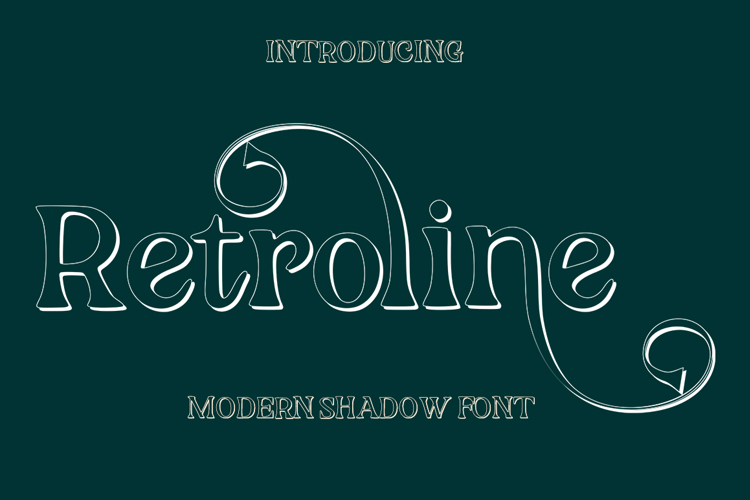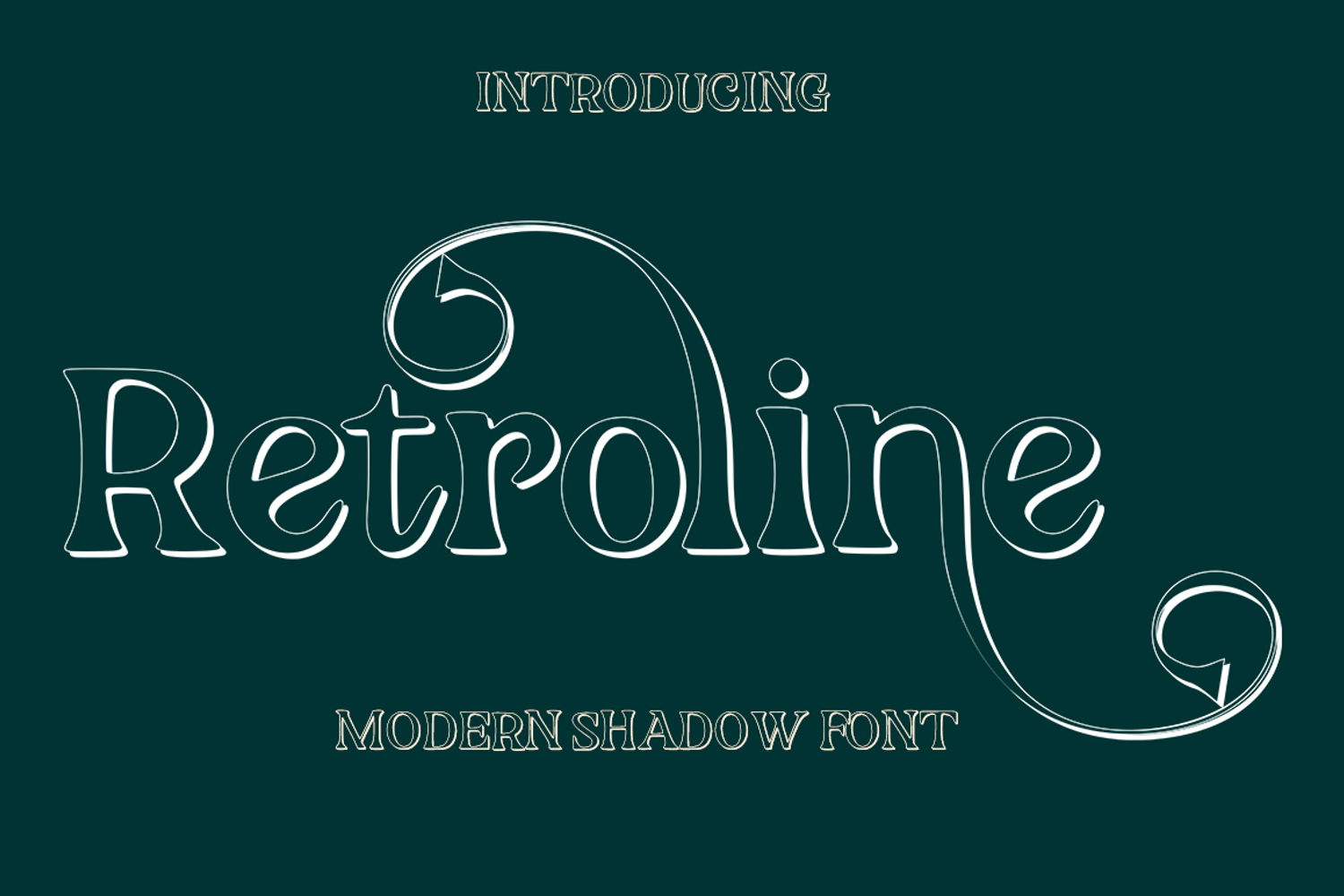
Retroline
Retroline and Sans is a beautiful and romantic combination of two fonts that have many beautiful characters that are very interesting. Retroline and Sans has 9 font styles. This font has beautiful, well-balanced characters, making it suitable for a variety of purposes. such as posters, wedding invitations, logos, product packaging, branding, titles, signs, labels, mugs, book covers, quotes, and other
Retroline and Sans features a glyph that includes character, alternative, and binders, including initial and final letters, alternates, binders, and multiple language support.